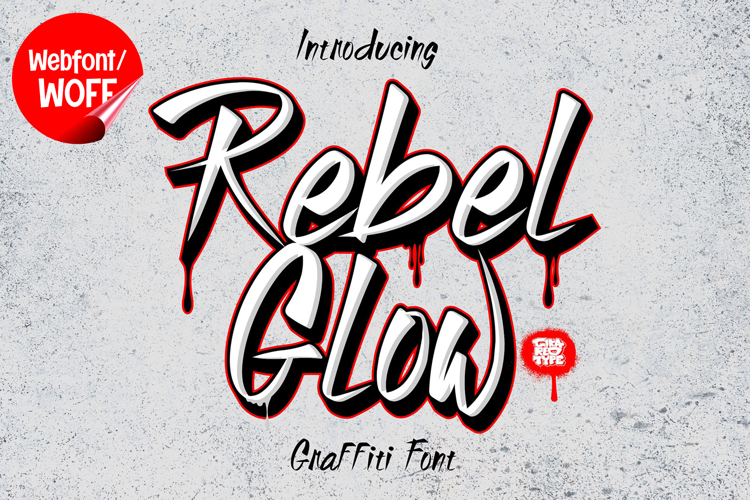
Rebel Glow | Brush Webfont for Bold Creative Websites
Rebel Glow is a brush webfont designed to bring expressive energy, bold strokes, and artistic freedom into modern website design. Inspired by hand-painted lettering and street-style brush techniques, this font features dynamic strokes with natural movement and texture. It is an excellent choice for projects that aim to deliver a strong, creative, and eye-catching typographic identity.
Rebel Glow includes a complete set of uppercase characters designed with bold brush-style strokes. The letterforms feature varying line thickness and organic curves that reflect the natural motion of a brush. This creates a lively and expressive appearance, making it ideal for headlines, banners, hero sections, and featured content where strong visual impact is needed.
In addition to letters, the font includes numbers and punctuation, allowing flexible usage across various parts of a website. It works well for promotional content, branding elements, event announcements, and call-to-action sections. Each character maintains a consistent brush style, ensuring a cohesive and unified visual identity throughout the layout.
With multilingual support, Rebel Glow includes a wide range of accented characters, making it suitable for international websites and global audiences. This allows content to be displayed clearly across different languages while preserving the expressive and artistic aesthetic.
The brush style of Rebel Glow makes it especially suitable for creative portfolios, lifestyle brands, streetwear websites, music platforms, and digital campaigns. Its bold and energetic design adds personality and emotion, helping websites stand out in visually competitive environments. The natural brush texture enhances authenticity and artistic expression.
Despite its expressive and textured appearance, Rebel Glow is designed with readability in mind. The spacing and proportions are carefully balanced to ensure clarity, particularly in display sizes. This makes it effective for impactful headings and short content elements where both style and usability are important.
Rebel Glow is a webfont that combines brush-style artistry with modern digital performance. Its dynamic strokes, natural flow, and bold character create a distinctive typographic presence that enhances website design. For projects that require a creative, expressive, and visually engaging font, Rebel Glow offers a strong and versatile solution.